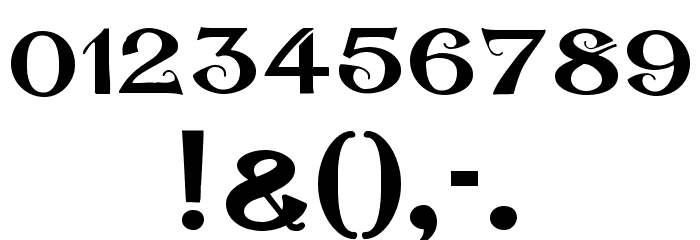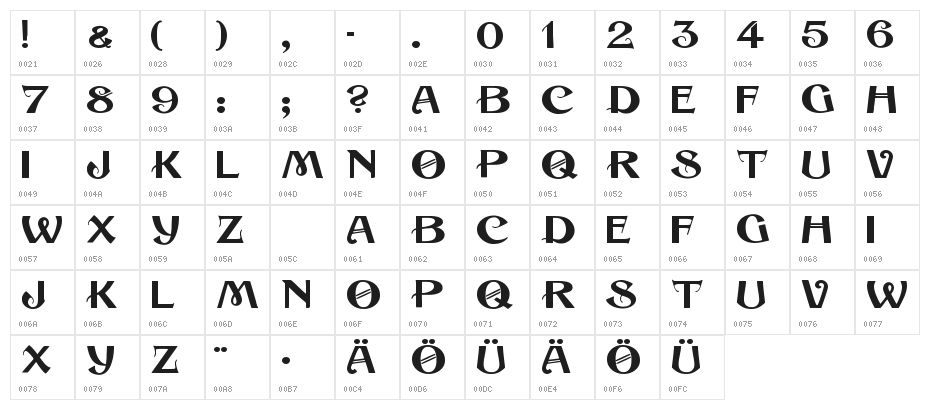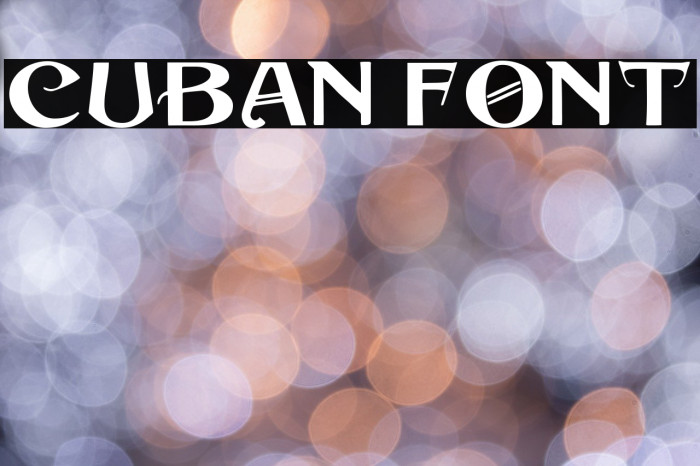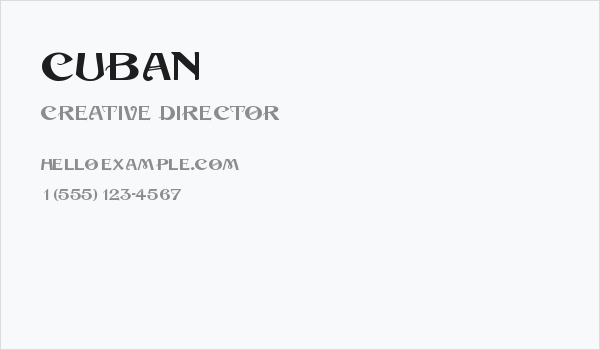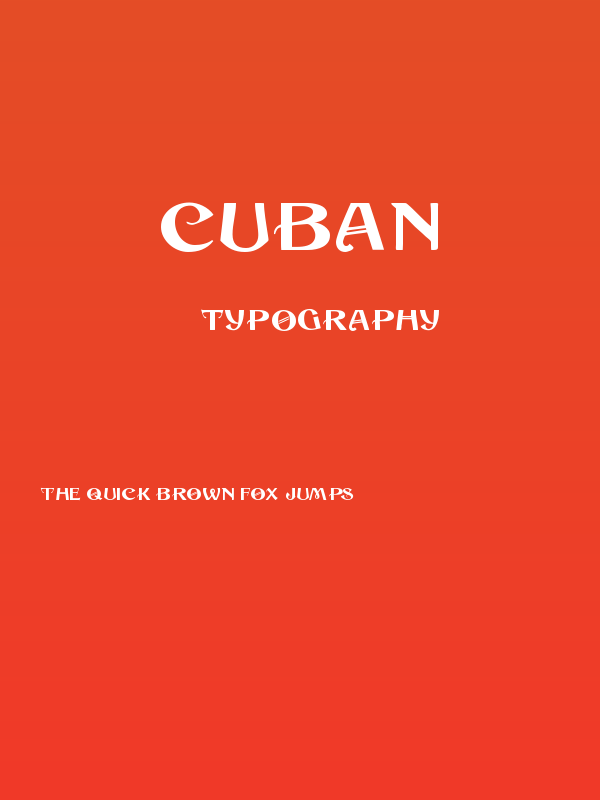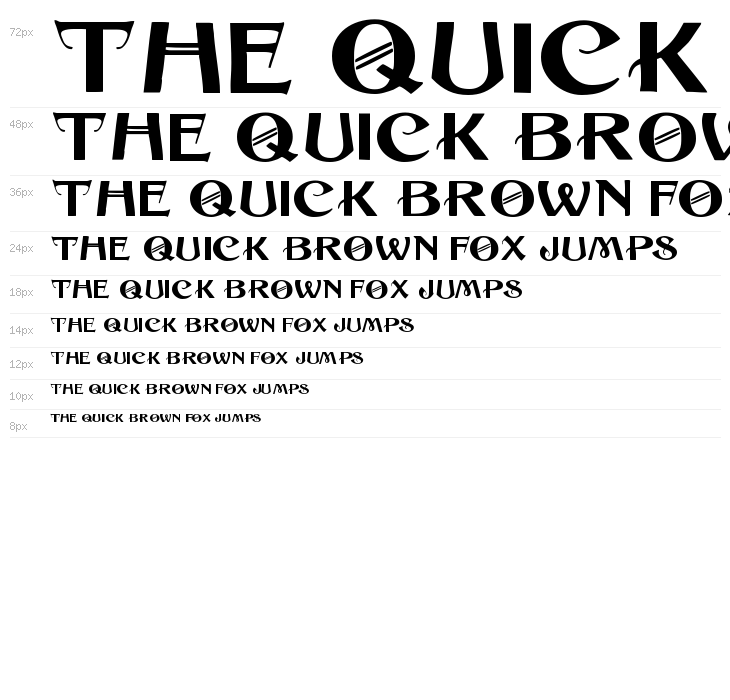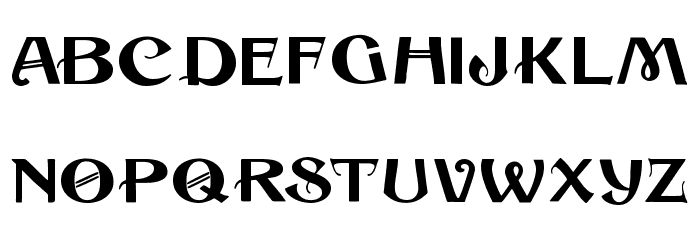
Cuban Font
Cuban Description
This font features a bold and decorative style with unique, artistic flourishes on each character. The uppercase letters exhibit a strong presence with thick strokes and distinctive serifs that add a touch of elegance and flair. The lowercase letters maintain the same decorative elements, ensuring consistency throughout the typeface. Numbers are equally bold and stylized, making them stand out in any design. The special characters are creatively designed, adding to the overall artistic appeal. This font is perfect for projects that require a dramatic and eye-catching typeface.